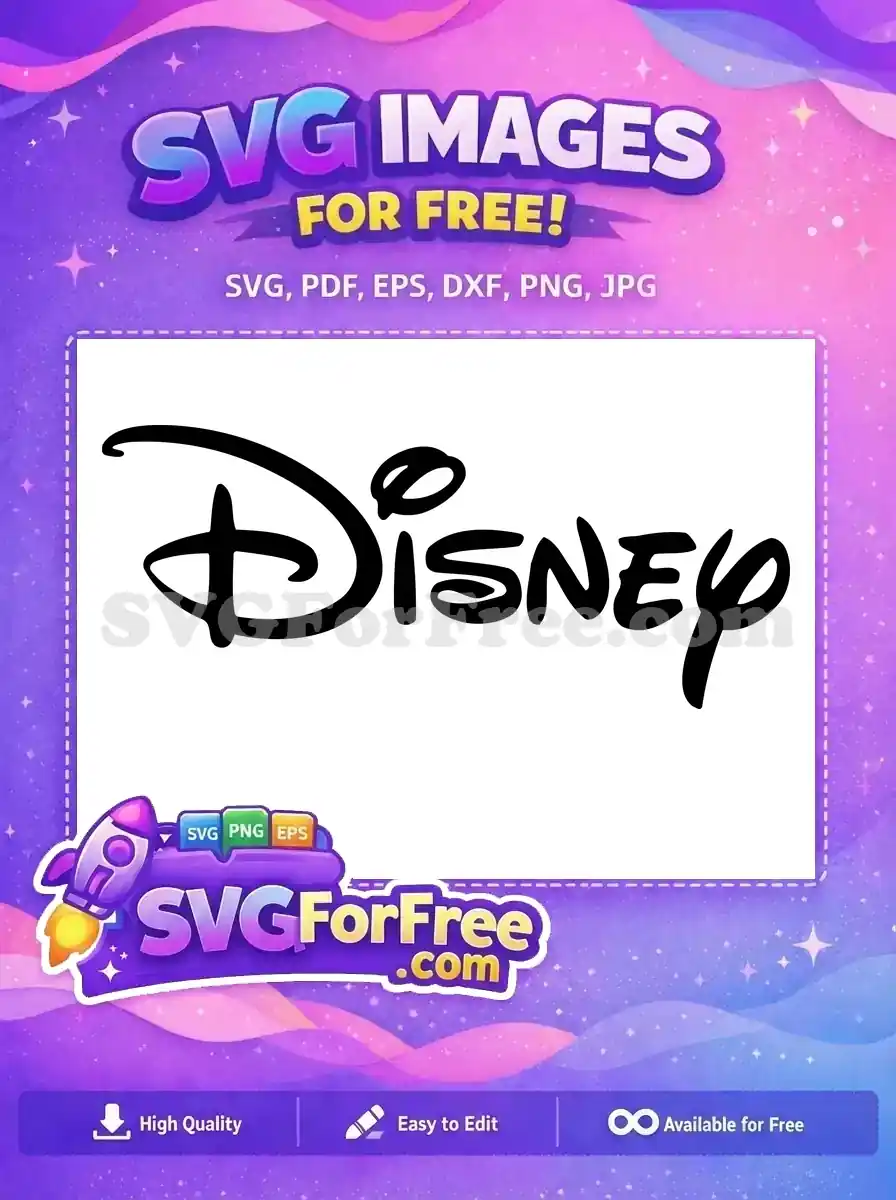
Free Classic Font Free Black Bold Disney Free SVG – Instant Download
The famous Disney signature script text in black, a free vector.
Free Classic Font Free Black Bold Disney Free SVG